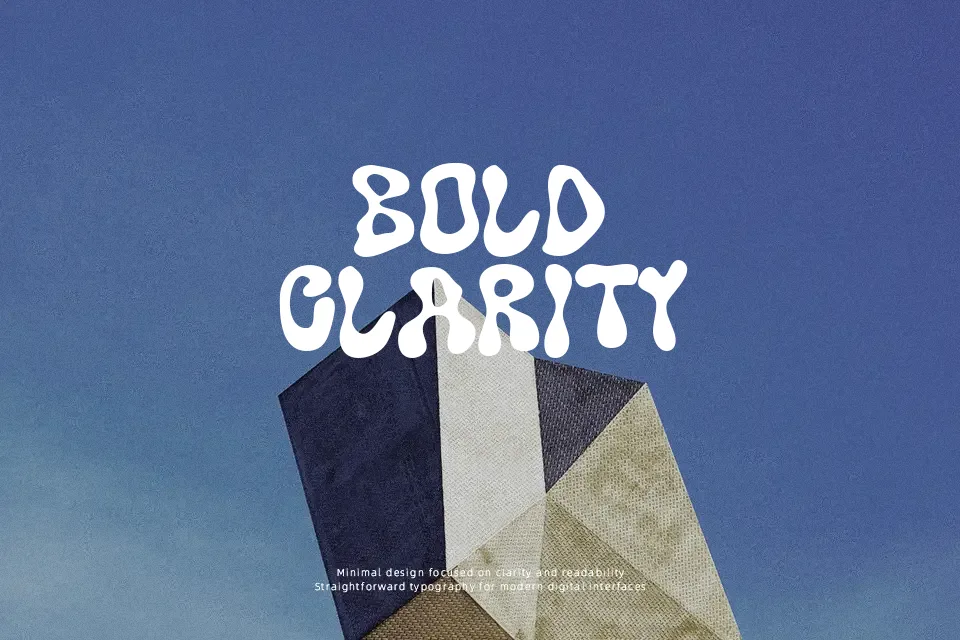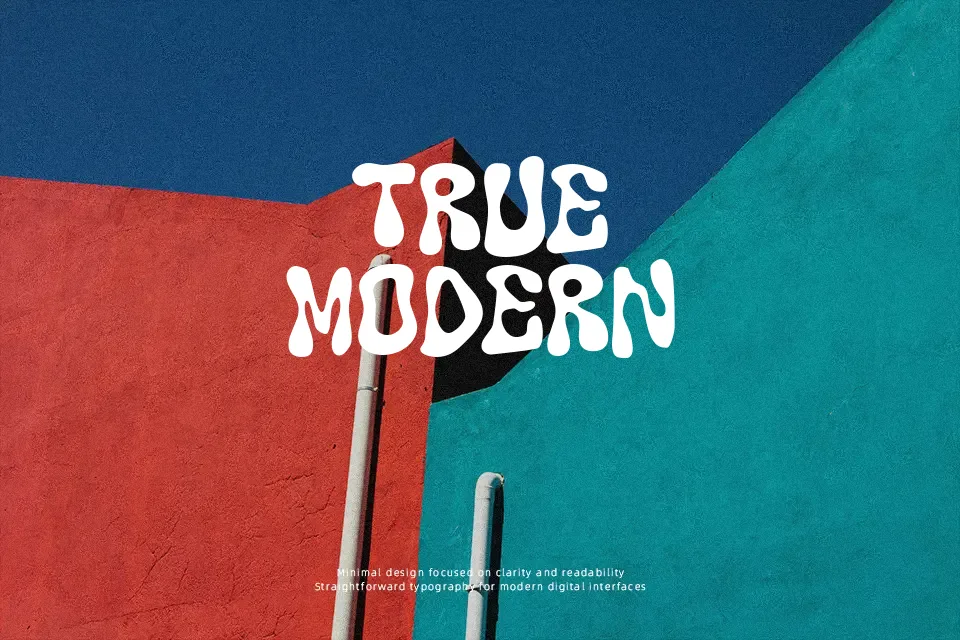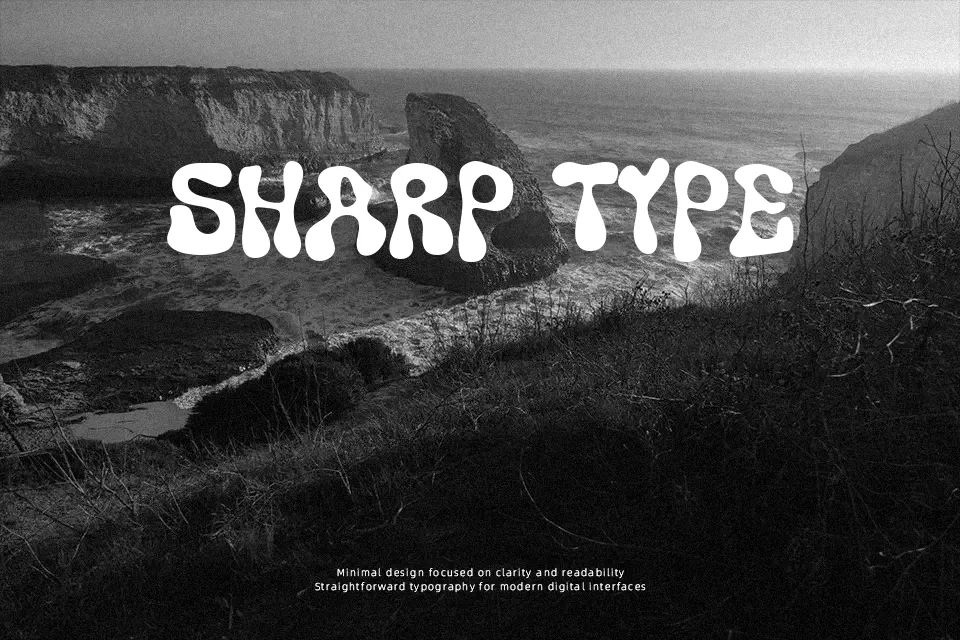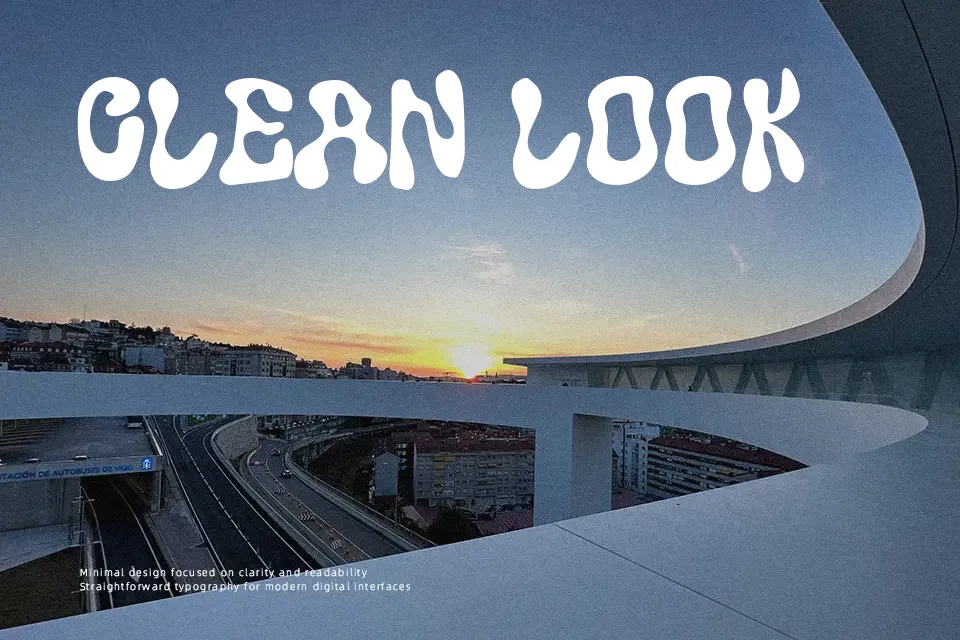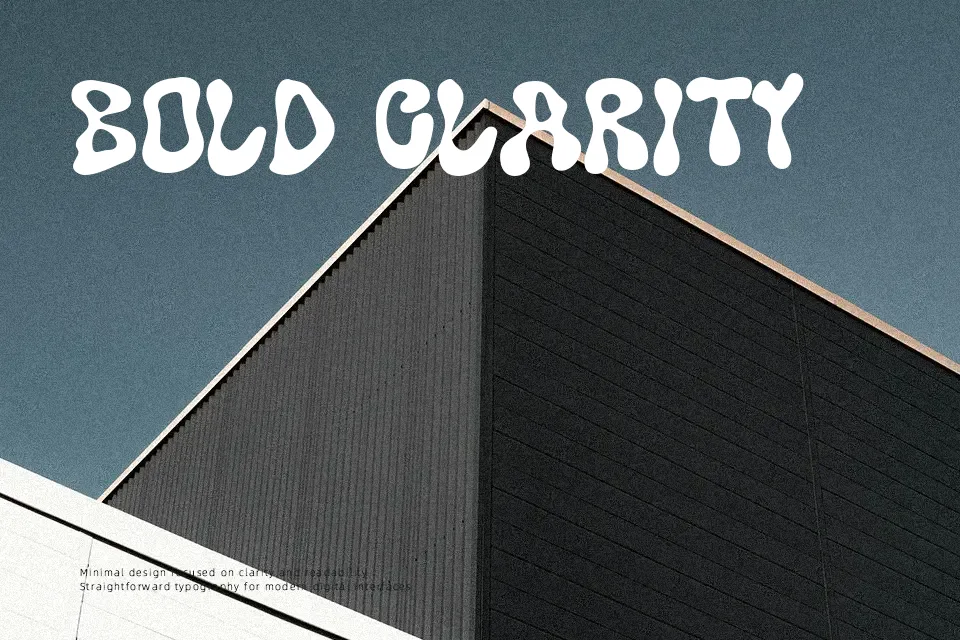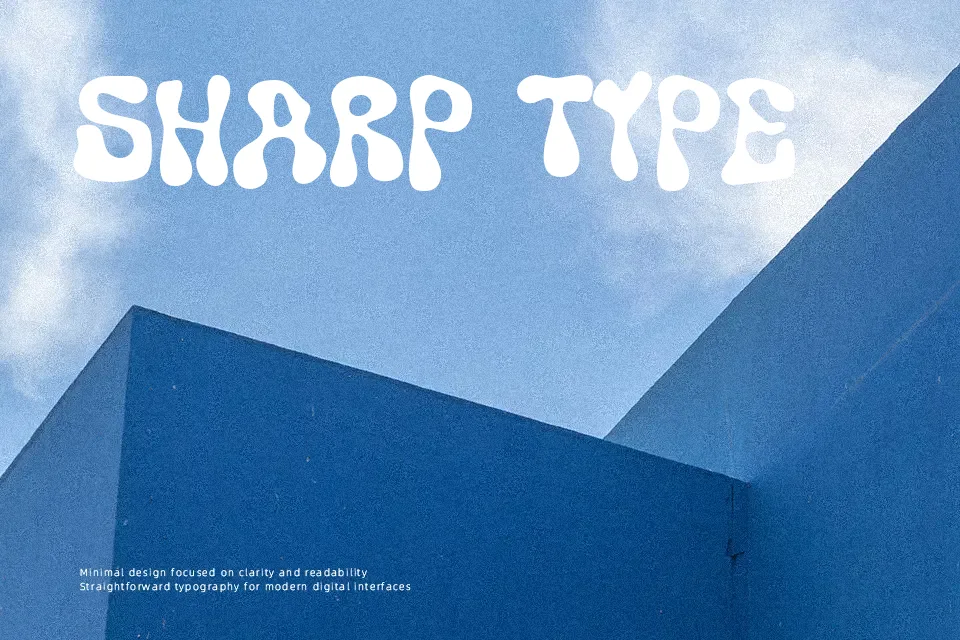
Super Shake Font
Designed by fsuarez913
Super Shake Font uses heavy, rounded letterforms with undulating contours and uneven-looking movement across the alphabet. Its broad proportions, soft curves, and substantial strokes create a cartoon-like display texture that remains recognizable in short words and large headlines. The spacing gives individual characters room to retain their silhouette, helping titles stay clear when set at larger sizes. Numerals and punctuation follow the same bold, playful visual language. It works most convincingly for concise, attention-led copy rather than structured text. The expressive outlines can make small captions and extended passages feel crowded, so it is best reserved for prominent display settings.
children’s activity posters,playful product packaging,party invitation headlines,social media graphics
long paragraph text,small interface labels,legal documents,dense editorial layouts